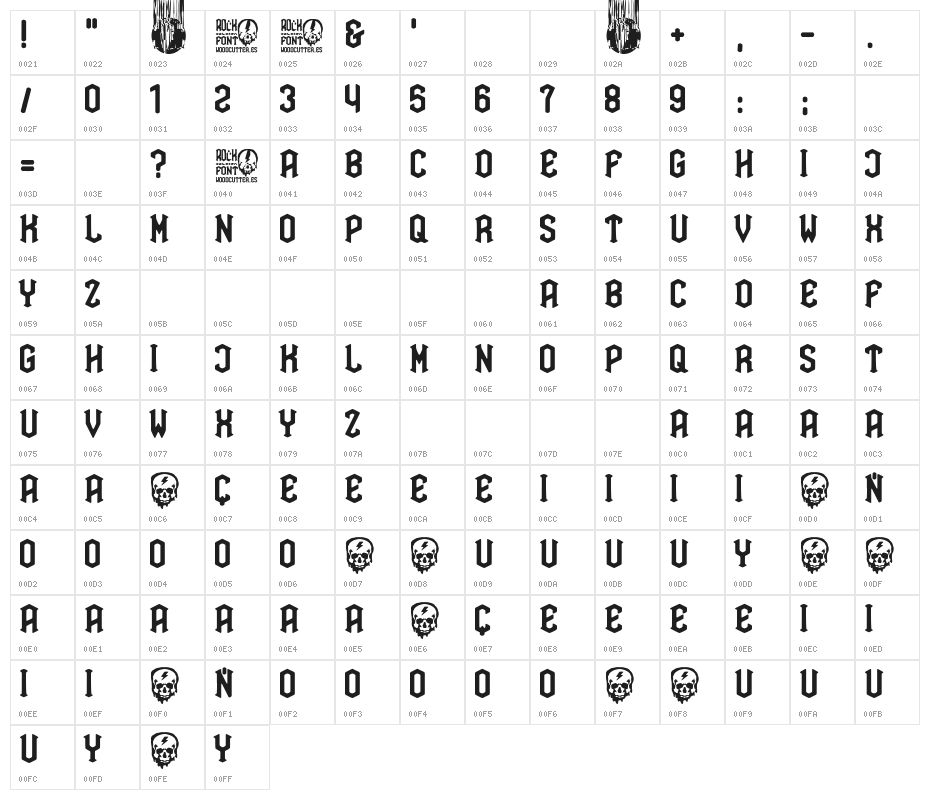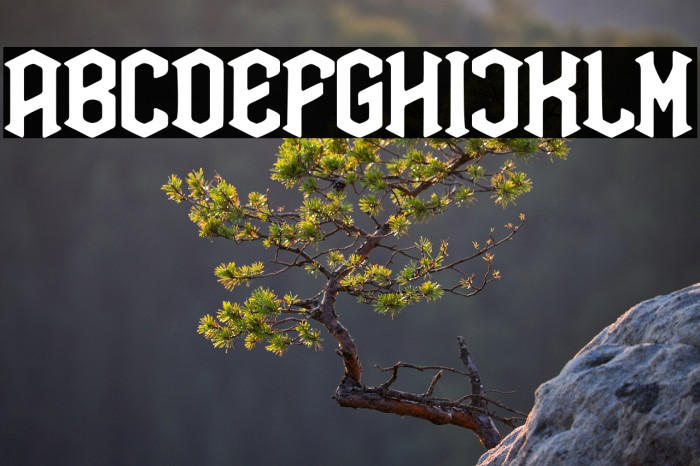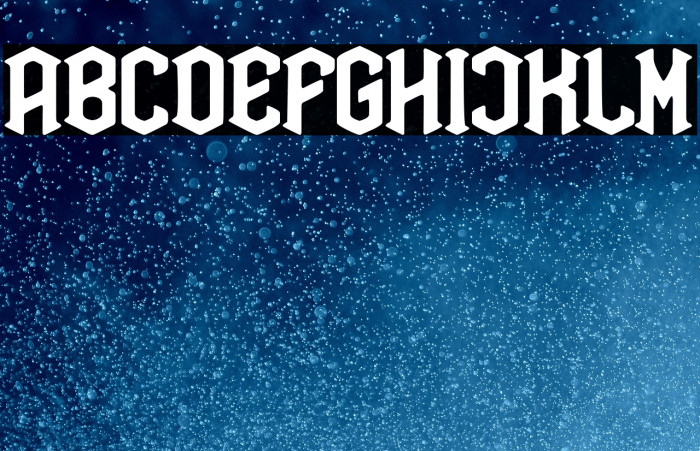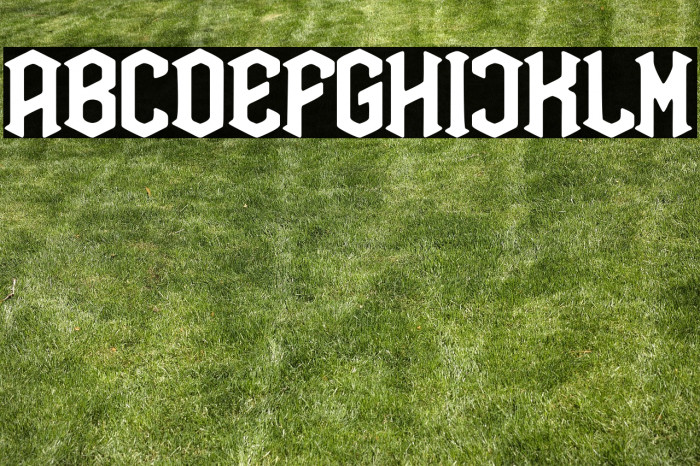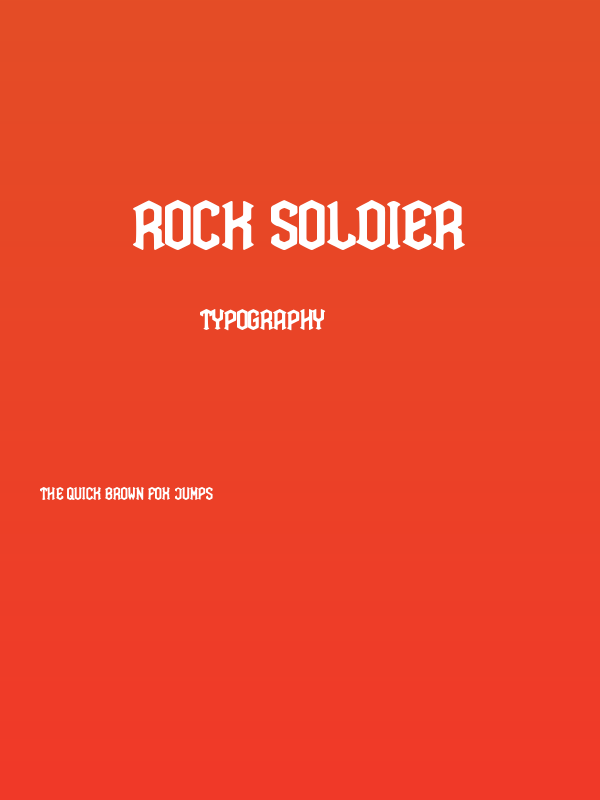
Rock Soldier Font
Rock Soldier Description
This font features a bold and rugged design, characterized by its thick, angular strokes and sharp edges. The uppercase letters are prominent and commanding, while the lowercase letters maintain a consistent style, offering a cohesive look. The numerals are equally bold, ensuring visibility and impact. Special characters are designed to match the overall aesthetic, making them suitable for various applications. The font's strong presence makes it ideal for projects that require a powerful and assertive visual impact.
| Proposed Projects | Ideal for branding, posters, album covers, and any design requiring a strong, impactful typeface. |